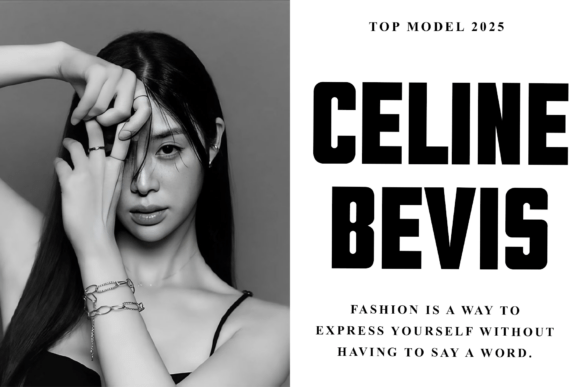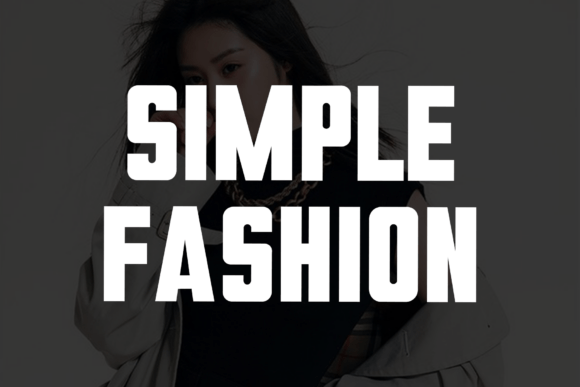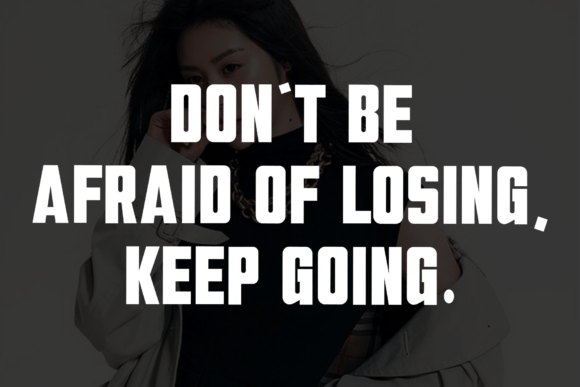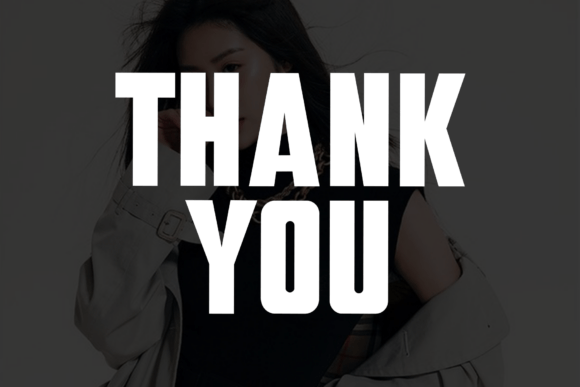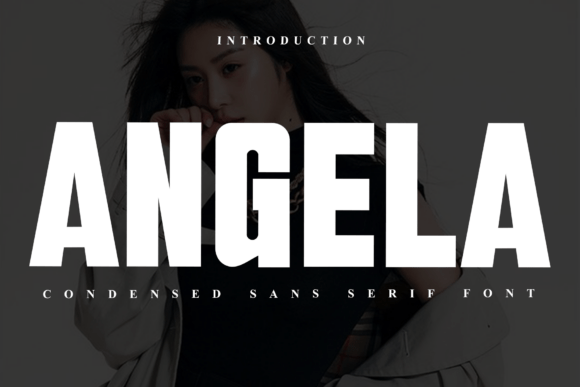
Introducing Angela Font: The Epitome of Modern Minimalism with Power
In the world of typography, a font can make or break a design. It can elevate a project from ordinary to extraordinary, conveying the perfect tone and style. Angela Font is one such typeface that commands attention with its bold, condensed sans-serif design. With its sharp lines and dramatic width, Angela is the perfect choice for designers and crafters looking to make a statement.
Clean, Confident, and Fashion-Forward
Angela Font embodies the principles of modern minimalism with power. Its clean lines, confident stance, and fashion-forward design make it an ideal choice for projects that demand strength and clarity. The condensed structure of Angela gives every word a sense of urgency and style, making it perfect for magazine headlines, posters, branding, and fashion campaigns.
Balanced Geometry for Perfect Readability
One of the standout features of Angela Font is its balanced geometry. This ensures that the font remains perfectly readable, even in smaller sizes. The sleek, editorial appeal of Angela makes it a versatile typeface that can be used in a variety of design projects. Whether you’re working on a digital layout or a print project, Angela’s strong presence fits seamlessly into any design.
Radiating Professionalism with a Cutting-Edge Look
Angela Font radiates professionalism with a cutting-edge look that’s hard to ignore. Its strong, bold lines and condensed structure give designs a sophisticated punch that’s sure to leave a lasting impression. Whether you’re working on a branding project, a fashion campaign, or a magazine headline, Angela Font is the perfect choice for designers looking to make a statement.
Angela Font is perfect for designers and crafters looking to elevate their projects with a typeface that’s both elegant and authoritative. With its sharp lines, dramatic width, and balanced geometry, Angela is an ideal choice for a variety of design projects. Here are just a few ways designers and crafters can use Angela Font:
- Magazine Headlines: Angela Font is perfect for magazine headlines, giving every title a sense of urgency and style.
- Posters: The bold, condensed design of Angela makes it an ideal choice for posters, giving every message a strong and confident presence.
- Branding: Angela Font is perfect for branding projects, conveying a sense of elegance and authority that’s hard to ignore.
- Fashion Campaigns: The fashion-forward design of Angela makes it a natural choice for fashion campaigns, giving every message a sense of style and sophistication.
A Visual Statement of Elegance and Authority
Angela Font is not just a typeface – it’s a visual statement of elegance and authority. With its sharp lines, dramatic width, and balanced geometry, Angela commands attention and conveys a sense of confidence and style. Whether you’re working on a digital layout or a print project, Angela Font is the perfect choice for designers and crafters looking to make a statement.
In conclusion, Angela Font is a bold, condensed sans-serif display font that’s perfect for designers and crafters looking to elevate their projects with a typeface that’s both elegant and authoritative. With its sharp lines, dramatic width, and balanced geometry, Angela is an ideal choice for a variety of design projects. Whether you’re working on a magazine headline, a poster, a branding project, or a fashion campaign, Angela Font is sure to give your design a sophisticated punch that’s hard to ignore.